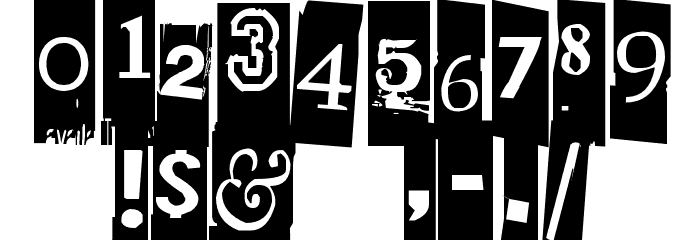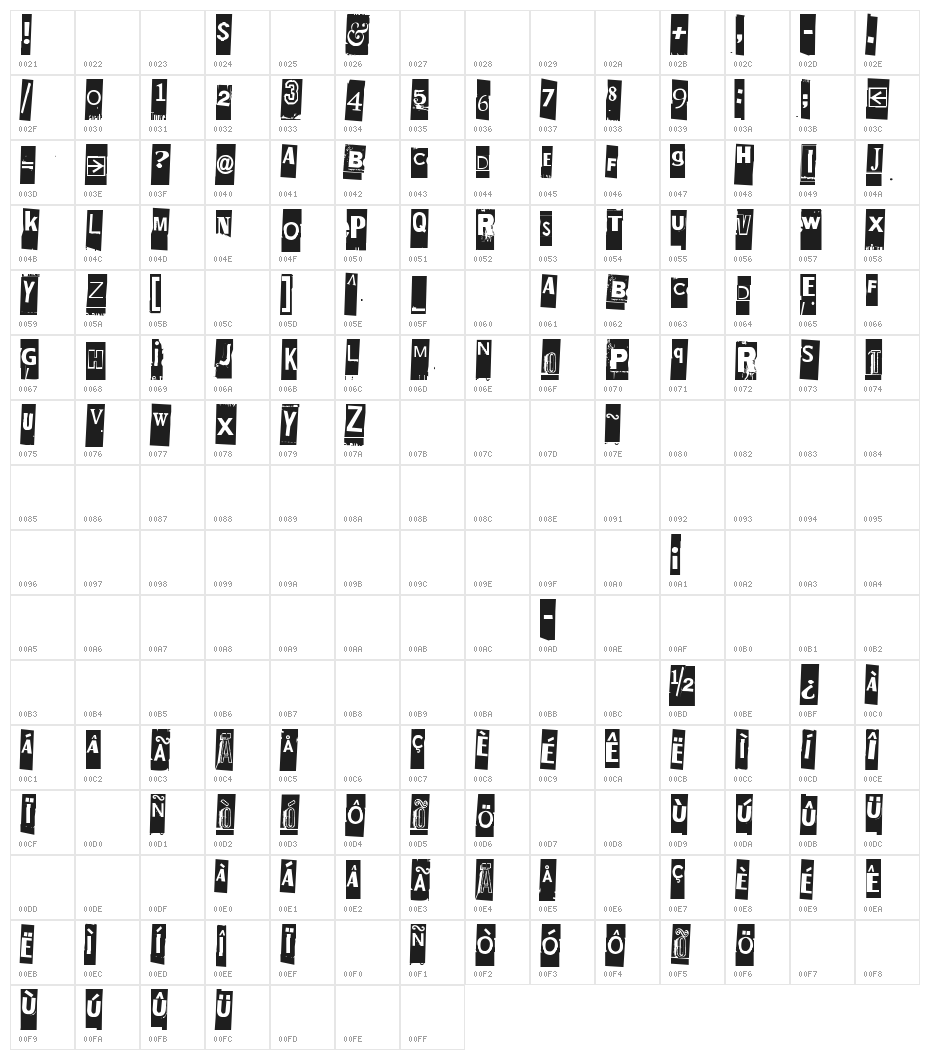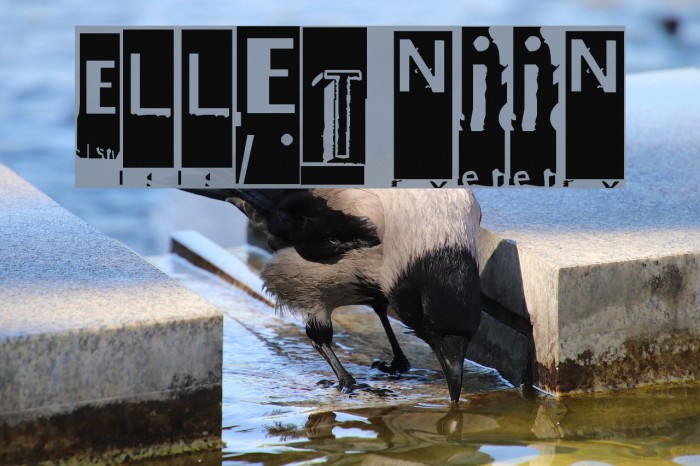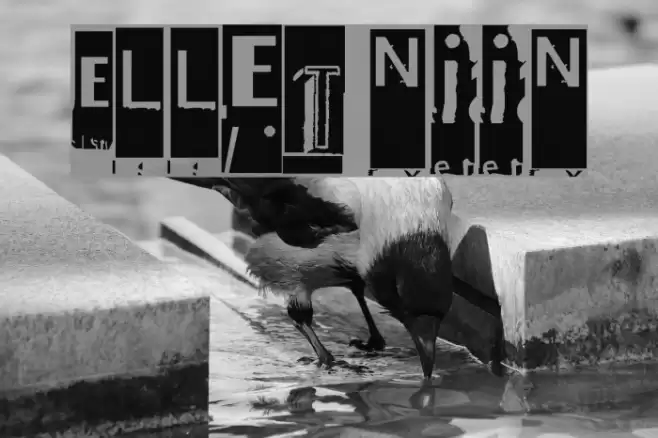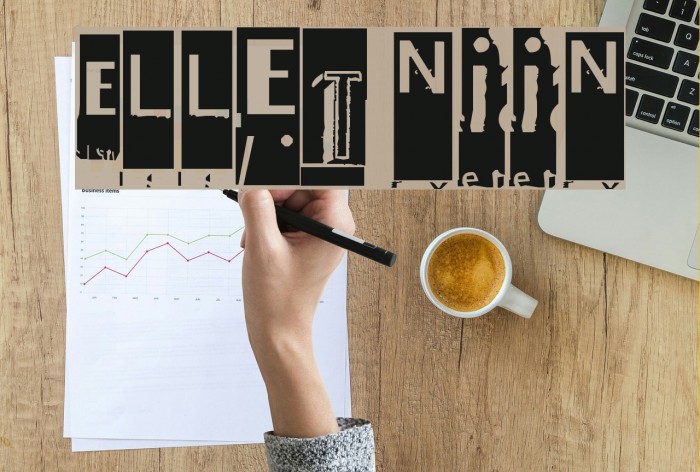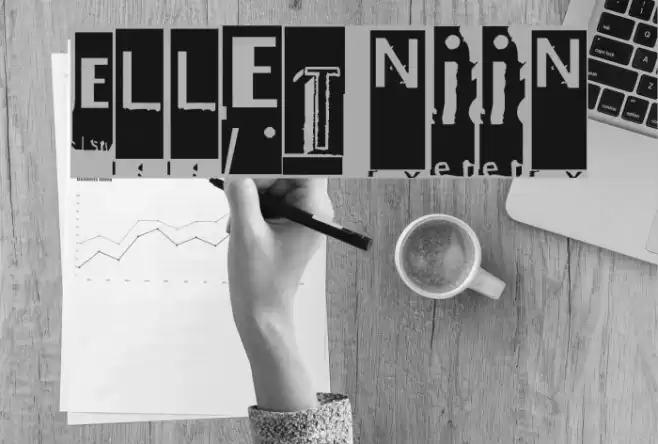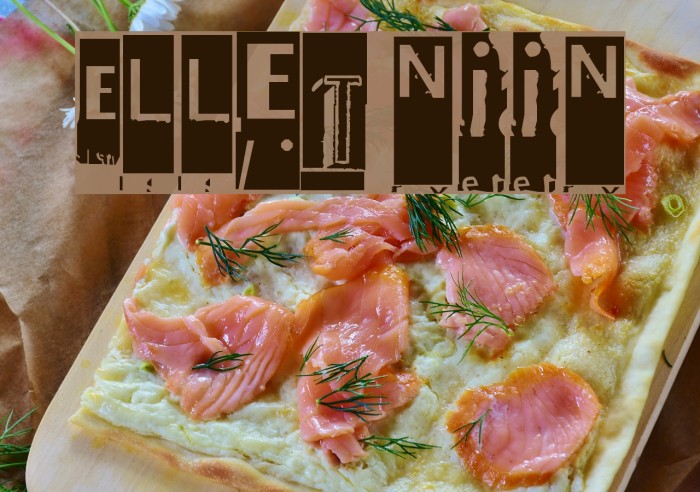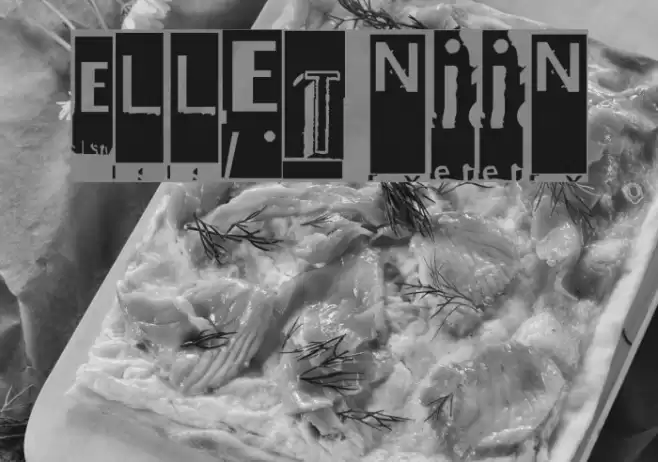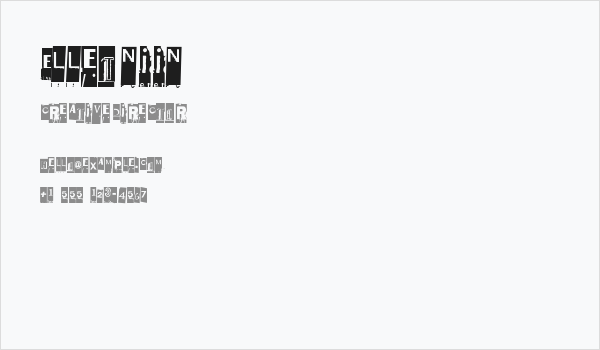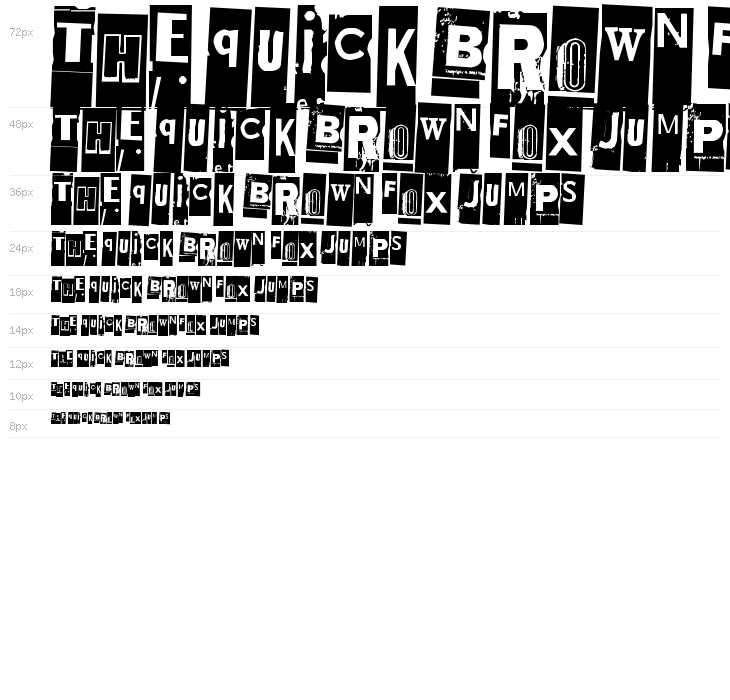
Ellet niin Font
Ellet niin Description
This font features a bold and eclectic style, reminiscent of cut-out letters from magazines or newspapers. Each character is uniquely styled, with varying levels of distress and texture, giving it a grunge and vintage feel. The uppercase and lowercase letters are distinct, with some characters appearing more distressed than others. Numbers and special characters follow the same theme, adding to the overall chaotic yet artistic appearance. The font's design is perfect for projects that require a bold statement or a retro, rebellious aesthetic.
| Overall Style | Vintage, Grunge |
| Use Case | Headlines, Posters, Artistic Designs |
| Proposed Projects | Ideal for album covers, posters, magazine headlines, and any design needing a bold, vintage look. |